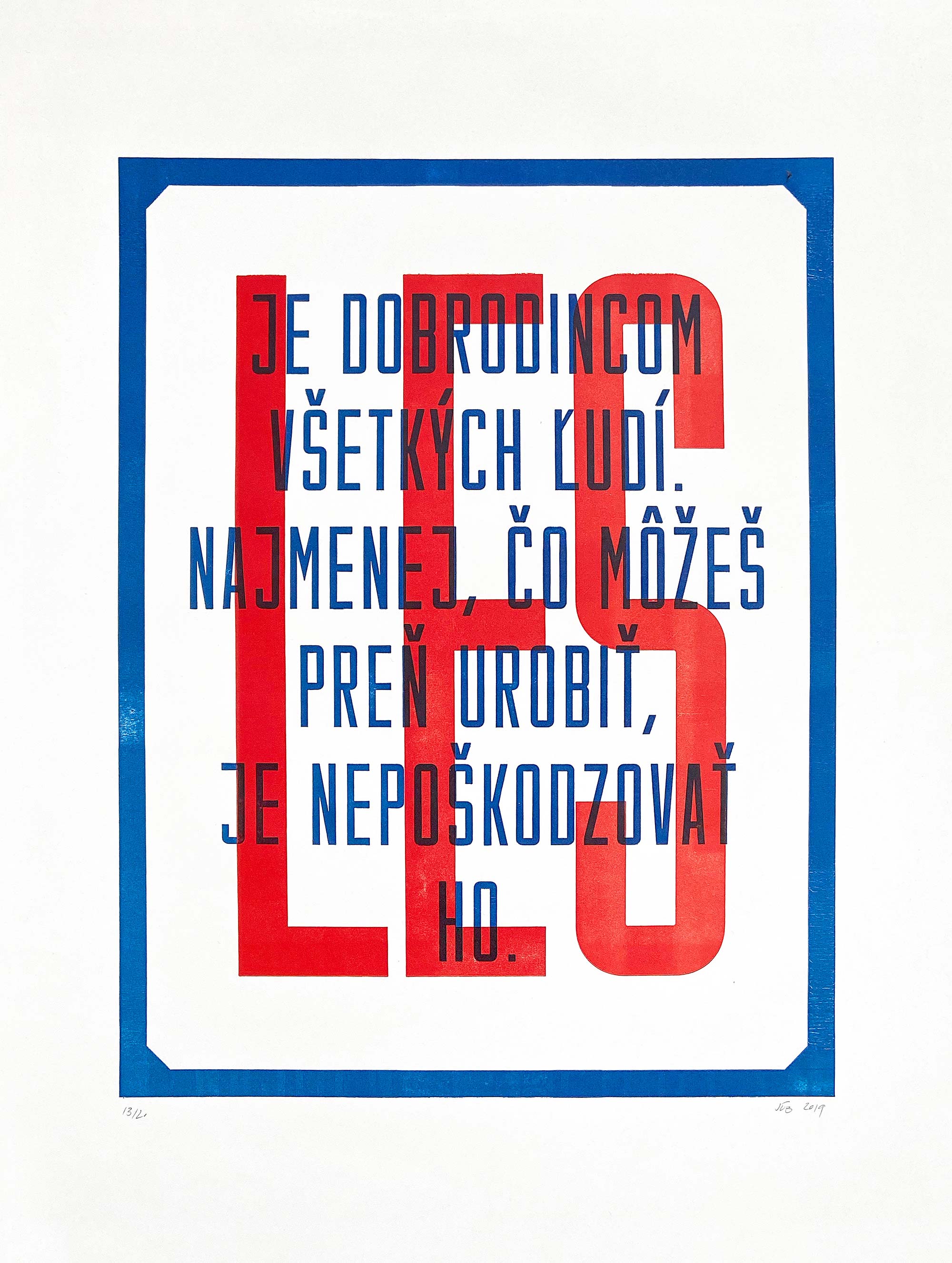
LES (Forest)
The LES (Slovak for forest) poster was created for a crowdfunding campaign for Pressink letterpress studio to help them raise funds for purchase and transport of the unique German printing press FAG Standard AP-510 from Berlin to Slovakia.
The poster is a digital reconstruction of a historical enamel plate and was created using fonts digitized as part of the Manual project. The text says: “Forest is a benefactor of all people. The least you can do for it is not to harm it.”